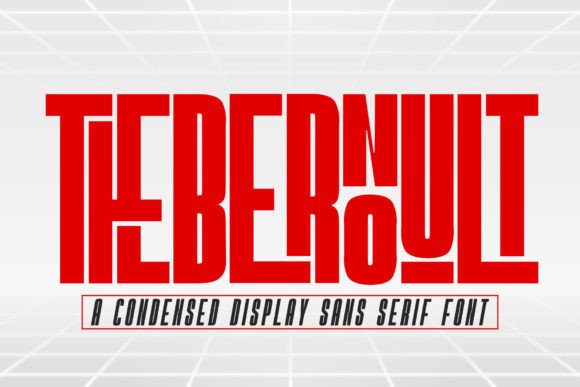
In a world saturated with online content, capturing attention and leaving a lasting impression is paramount. In this digital landscape, fonts play a pivotal role, acting as silent storytellers that convey emotions, set the tone, and create a unique identity for your brand. Meet Thebernoult Font, the sans serif masterpiece crafted by Madatype Studio, designed to elevate your website copy to new heights.
Thebernoult Font: A Timeless Typeface for Modern Visionaries
With its clean lines, minimalist design, and unwavering legibility, Thebernoult Font is a symphony of simplicity and sophistication. Its unassuming elegance lends itself seamlessly to a myriad of applications, from crafting captivating t-shirt designs to designing brand logos that exude timeless appeal.
Beyond its aesthetic prowess, Thebernoult Font possesses an inherent versatility that empowers you to articulate your brand's story with unparalleled clarity and impact. Whether you seek to convey a casual, approachable vibe or a formal, authoritative tone, Thebernoult Font effortlessly adapts to your vision, ensuring your message resonates with your target audience.
Experience the Transformative Power of Thebernoult Font
Step into a realm where words dance with grace and meaning, where every letter carries the weight of intention. Unleash your creativity and craft website copy that captivates, engages, and propels your brand to new heights of success. With Thebernoult Font as your creative ally, you hold the key to unlocking a world of possibilities, transforming your website into a symphony of visual delight and compelling storytelling.
Thebernoult Font: The Key to Unlocking Brand Success
In a competitive digital landscape, standing out from the noise requires a keen eye for detail and an unwavering commitment to excellence. Thebernoult Font is your secret weapon, empowering you to create website copy that captivates, resonates, and converts. Its timeless design, exceptional versatility, and unwavering legibility combine to create a font that is not just a tool, but an investment in your brand's future.
Embrace the power of Thebernoult Font and watch as your website copy blossoms into a masterpiece of persuasion and engagement. Elevate your brand, captivate your audience, and forge an indelible mark in the digital realm.